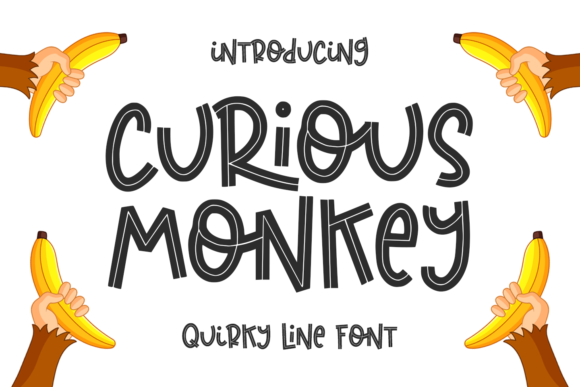
Introducing Curious Monkey Font, the ultimate display font that ignites imagination and adds a touch of whimsy to your creative projects. Its playful and childlike style is brimming with fun, quirkiness, and authenticity, making it the perfect choice for kids and school projects.
With its distinctive hand-drawn charm, Curious Monkey Font captivates the eye and transforms your words into captivating expressions. Its unique character set, complete with a collection of playful glyphs, guarantees that your designs will stand out from the crowd.
Unleash your creativity and let your imagination run wild with Curious Monkey Font. Its versatility allows you to craft projects that exude a sense of wonder and enchantment. From eye-catching posters to heartfelt greeting cards, this font elevates the ordinary into the extraordinary.
So, dive into the world of Curious Monkey Font today and let its playful spirit breathe life into your creative endeavors. Whether you're a seasoned designer or a creative soul seeking a unique expression, this font is your passport to a world where imagination reigns supreme.